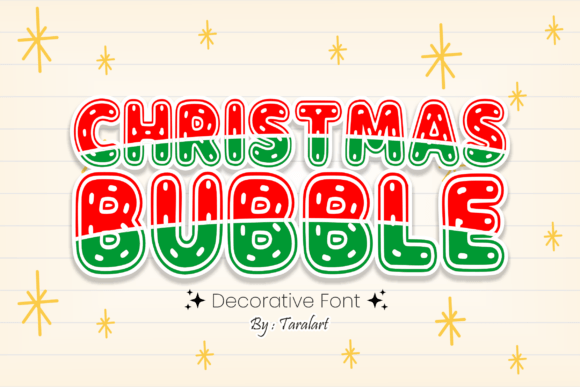
Unveiling the Charmingly Contemporary Christmas Bubble Font
The holiday season is upon us, and with it comes the desire to create festive and fun designs that capture the spirit of Christmas. For designers, crafters, and DIY enthusiasts, finding the perfect font to convey holiday cheer can be a challenge. That’s where the Christmas Bubble font comes in – a charmingly contemporary font designed to bring whimsy and playfulness to your holiday creations.
What Makes Christmas Bubble Special?
Every character in the Christmas Bubble font carries its own unique whimsy, making it a breeze to articulate your creativity. This delightful font is perfect for adding a touch of holiday magic to various projects, from sublimation designs to cartoons and comic titles.
- Unique Character Design: Each character in the Christmas Bubble font is carefully crafted to bring a sense of playfulness and fun, making it perfect for holiday designs.
- Whimsical and Playful: The font’s whimsical design makes it ideal for adding a touch of personality to your holiday creations.
- Versatile: Christmas Bubble can be used for a wide range of projects, from t-shirts and mugs to cartoons and comic titles.
Perfect for Sublimation Designs
The Christmas Bubble font is a flawless fit for bringing vibrancy to sublimation designs on various products, such as:
- T-Shirts: Add a festive touch to your holiday t-shirts with the Christmas Bubble font.
- Mugs: Create fun and playful mug designs that are sure to bring a smile to anyone’s face.
- Tote Bags: Add a touch of holiday cheer to your tote bags with this delightful font.
The font’s bold and playful design makes it perfect for sublimation designs, ensuring that your creations will stand out.
Bringing Playfulness to Cartoons and Comic Titles
The Christmas Bubble font is not just limited to sublimation designs; it’s also perfect for adding a touch of playfulness to:
- Cartoons: Bring your cartoons to life with the whimsical and playful design of the Christmas Bubble font.
- Comic Titles: Add a festive touch to your comic titles and make them stand out.
The font’s unique design makes it easy to create eye-catching and engaging titles that will capture the attention of your audience.
Unleash Your Untamed Imagination
The Christmas Bubble font is more than just a font – it’s a canvas for your untamed imagination. With its unique and playful design, you can create a wide range of projects that showcase your creativity.
In conclusion, the Christmas Bubble font is a charmingly contemporary font that’s perfect for adding a touch of holiday cheer to your designs. With its unique character design, whimsical and playful feel, and versatility, it’s the perfect tool for designers, crafters, and DIY enthusiasts.